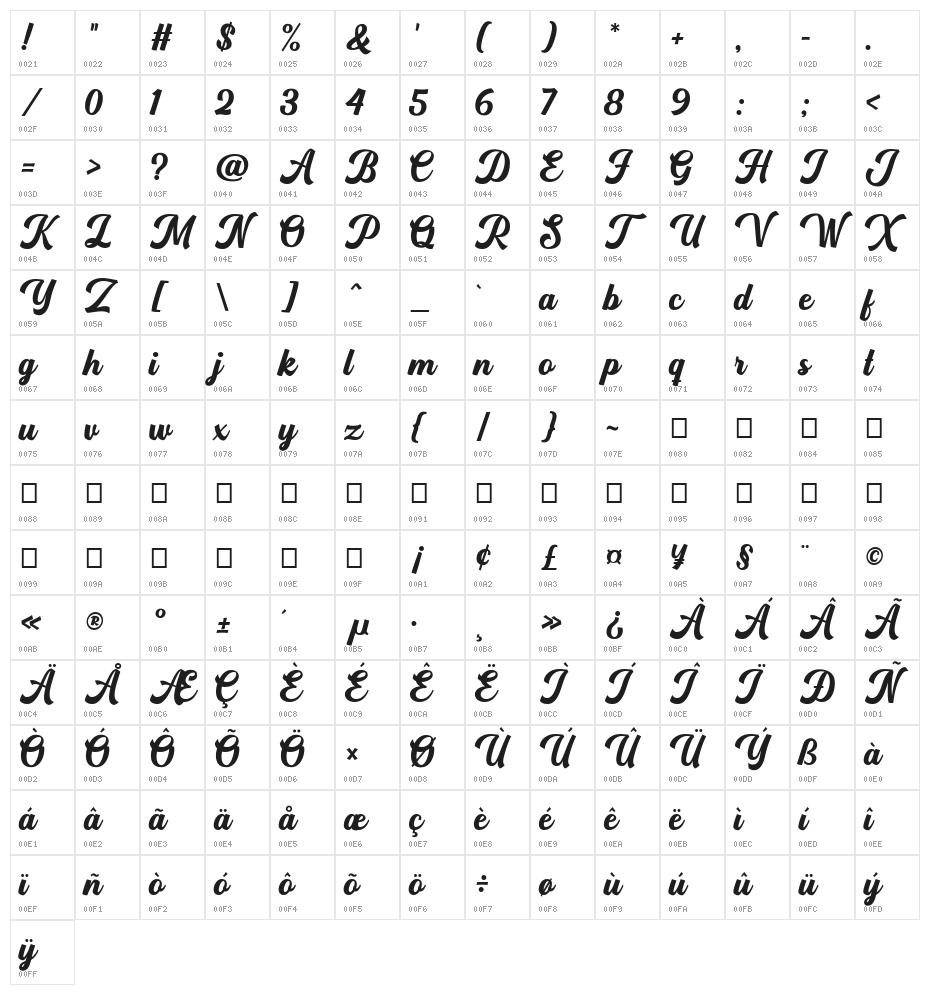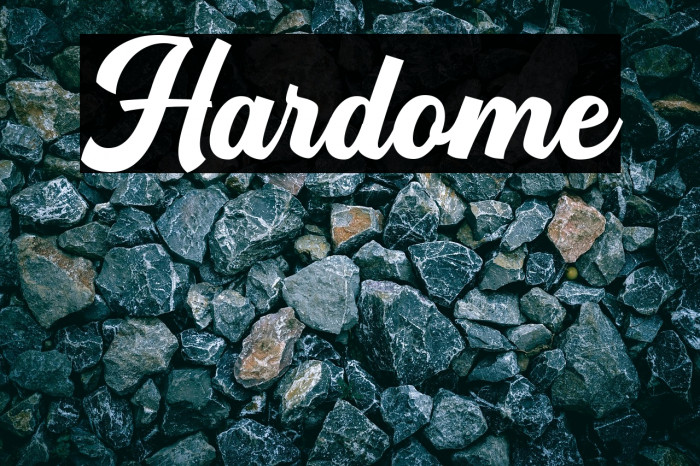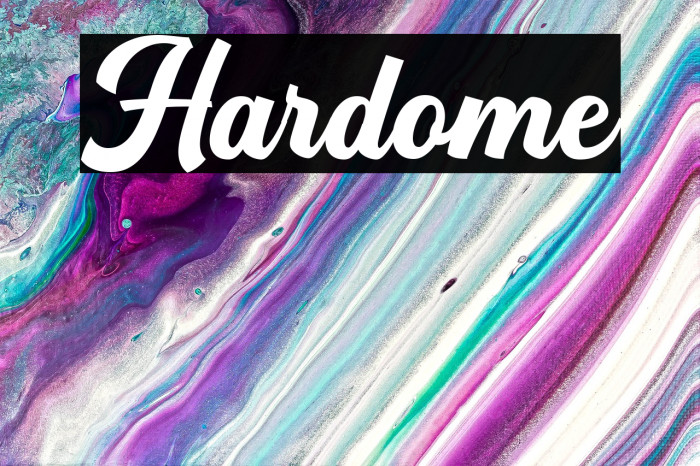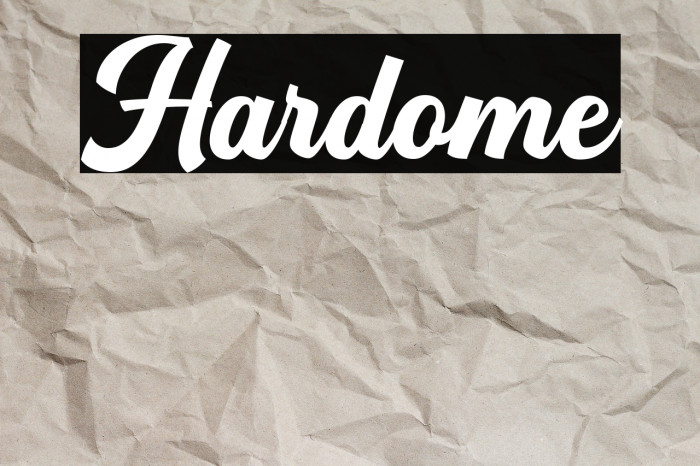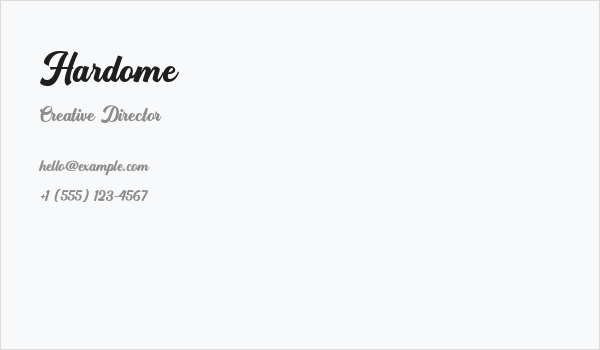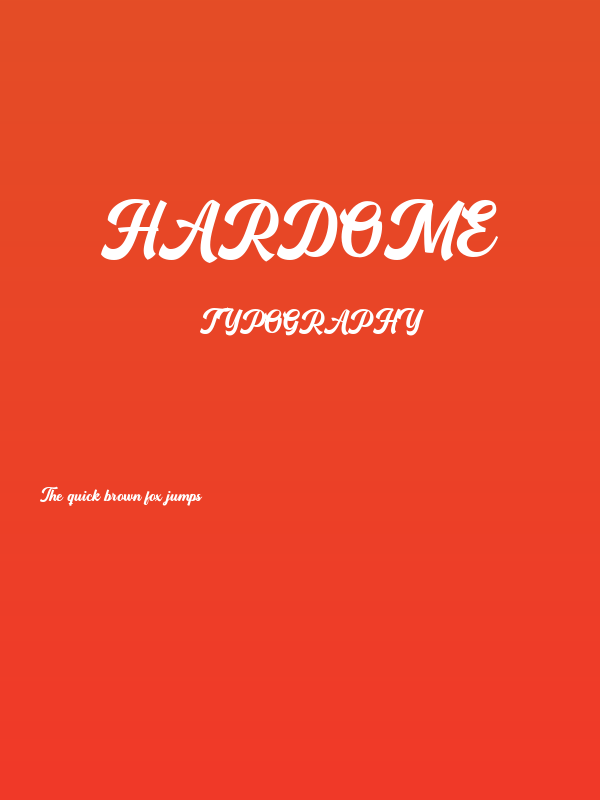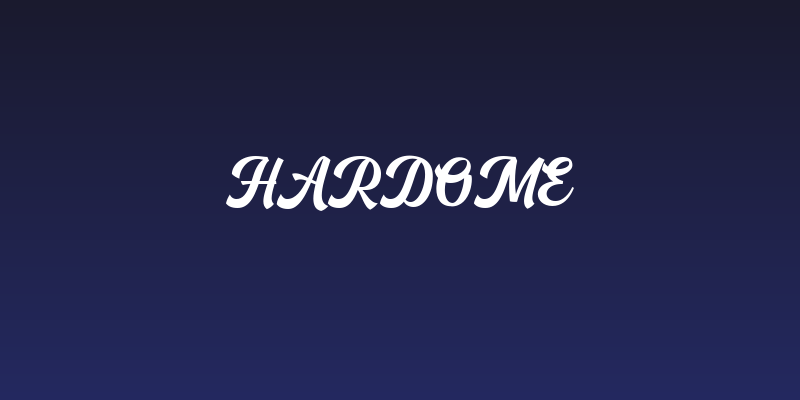
Hardome Font
Hardome Description
This font features a bold and dynamic script style with a strong presence. The uppercase letters are elegantly connected, creating a flowing and cohesive look. The lowercase letters maintain the same fluidity, with some characters having distinctive loops and curves that enhance the font's expressive nature. The numerals are bold and clear, ensuring readability. Special characters are well-integrated, maintaining the overall aesthetic. This font's boldness and script style make it suitable for impactful designs.
| Use Case | Headlines, Logos, Invitations |
| Proposed Projects | Ideal for branding, logos, invitations, and headlines where a strong, expressive style is desired. |